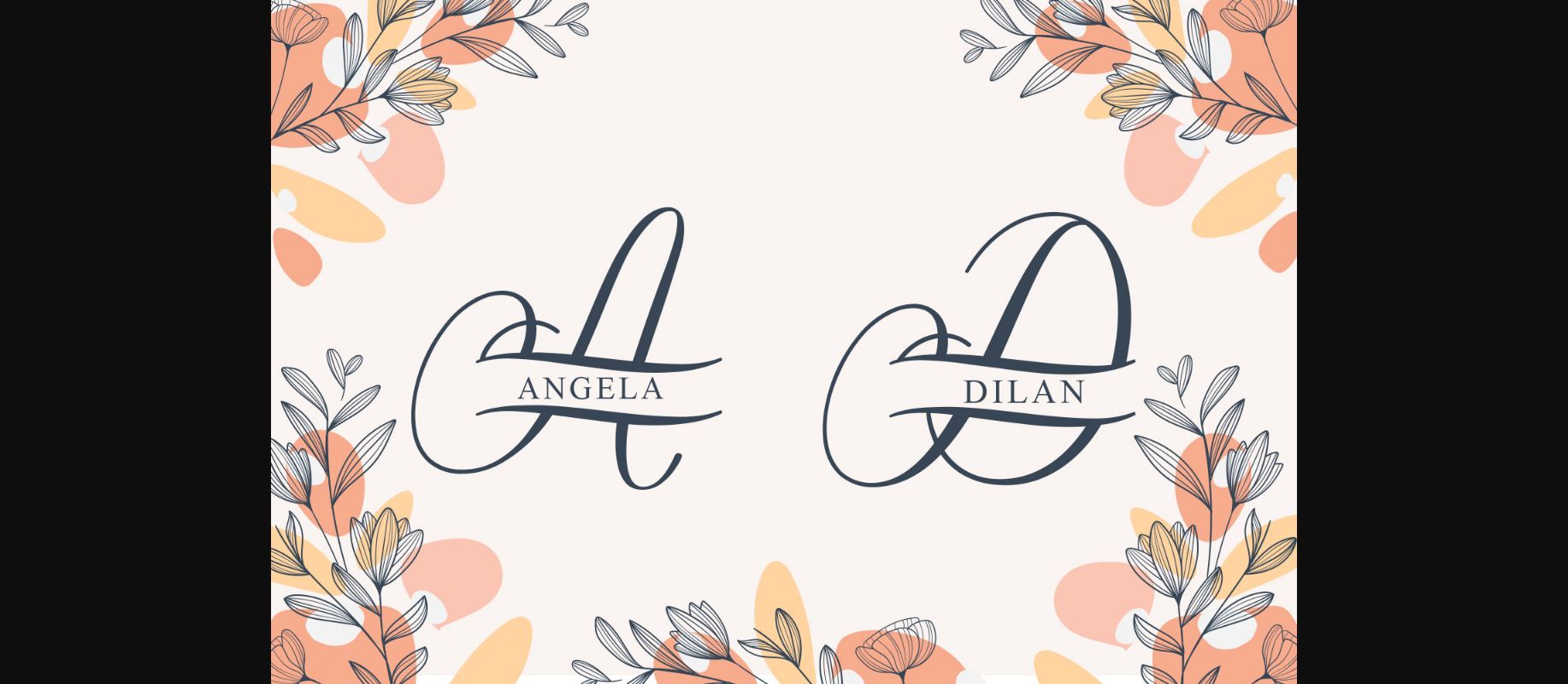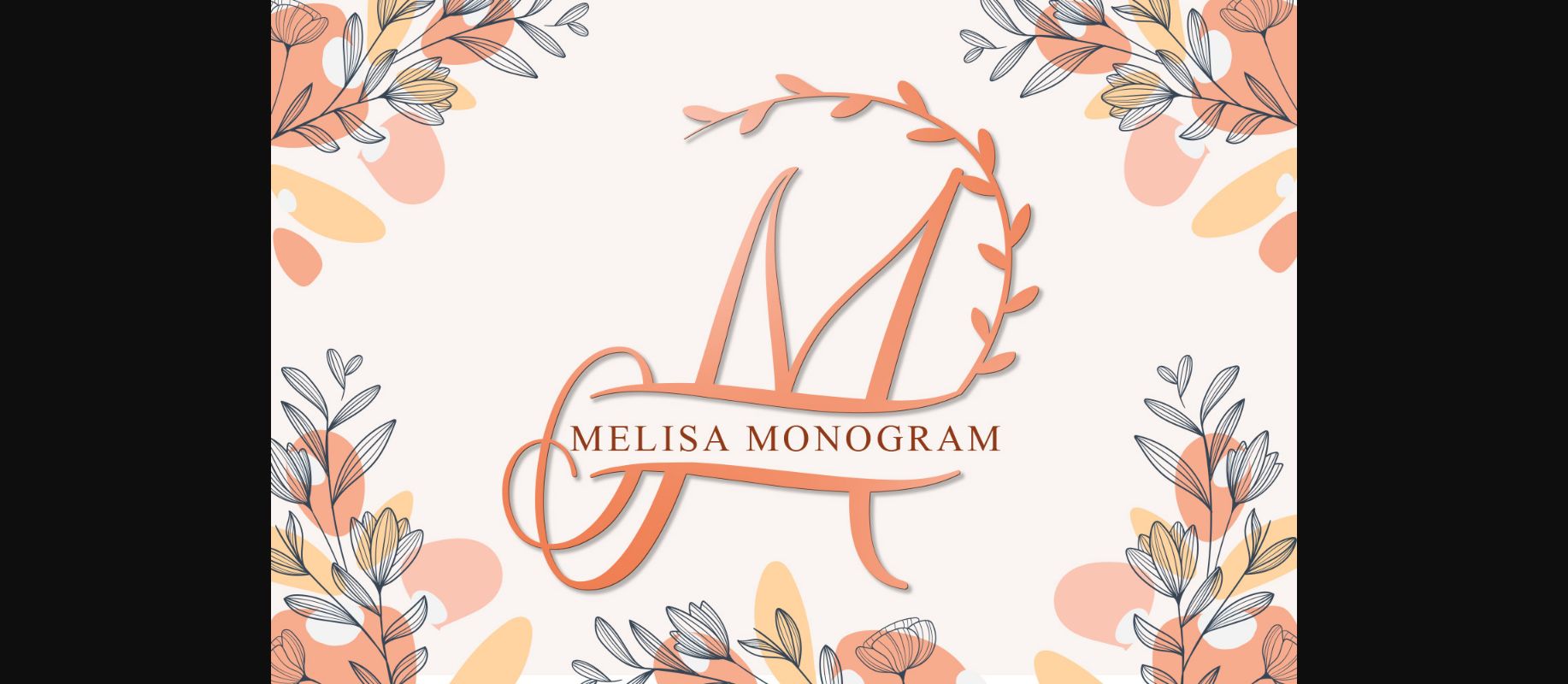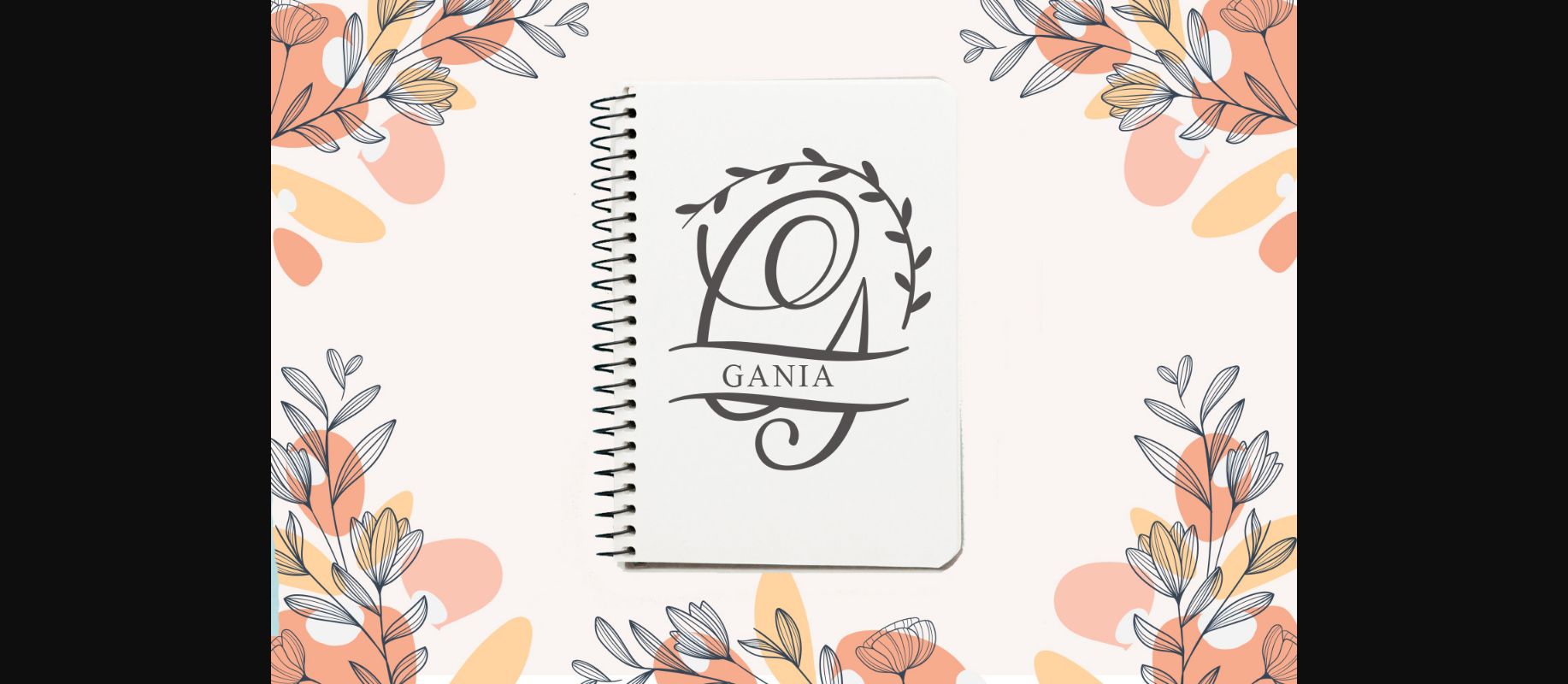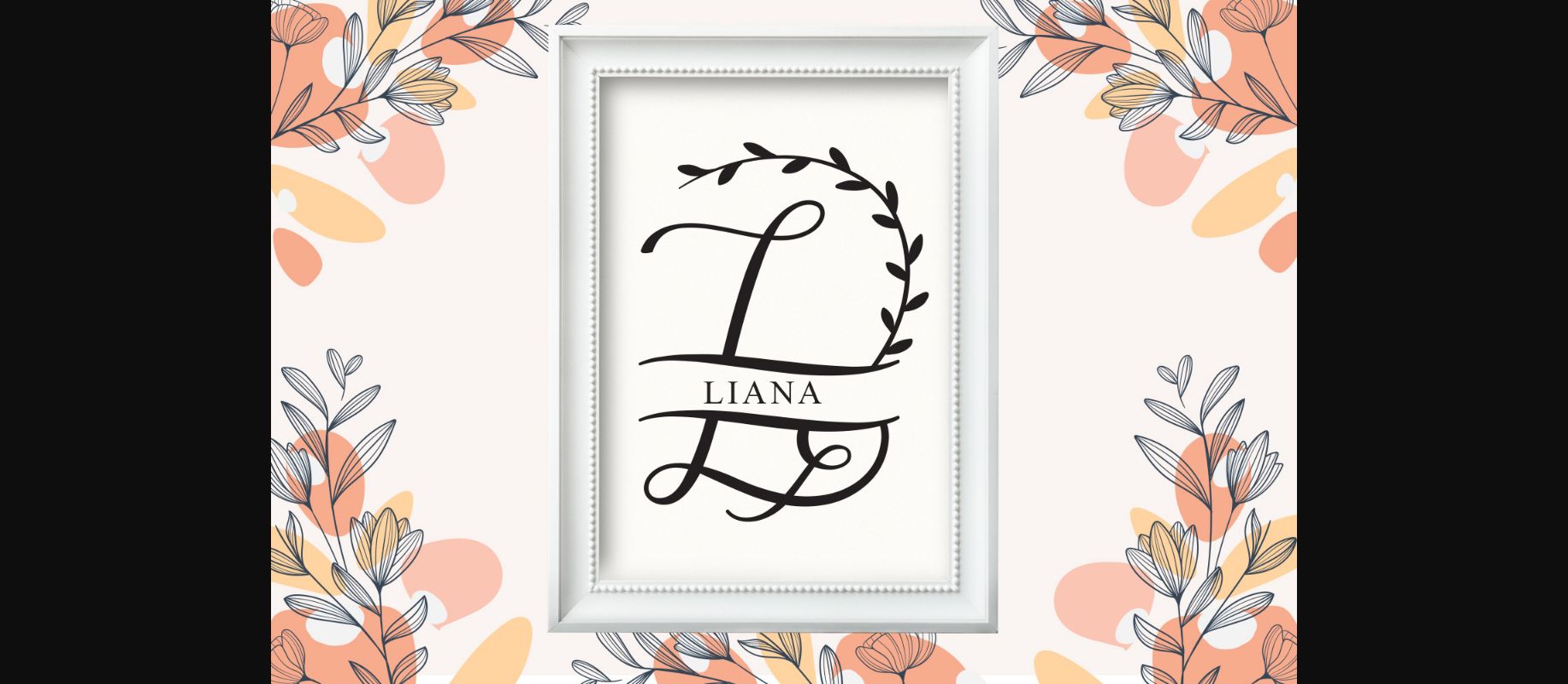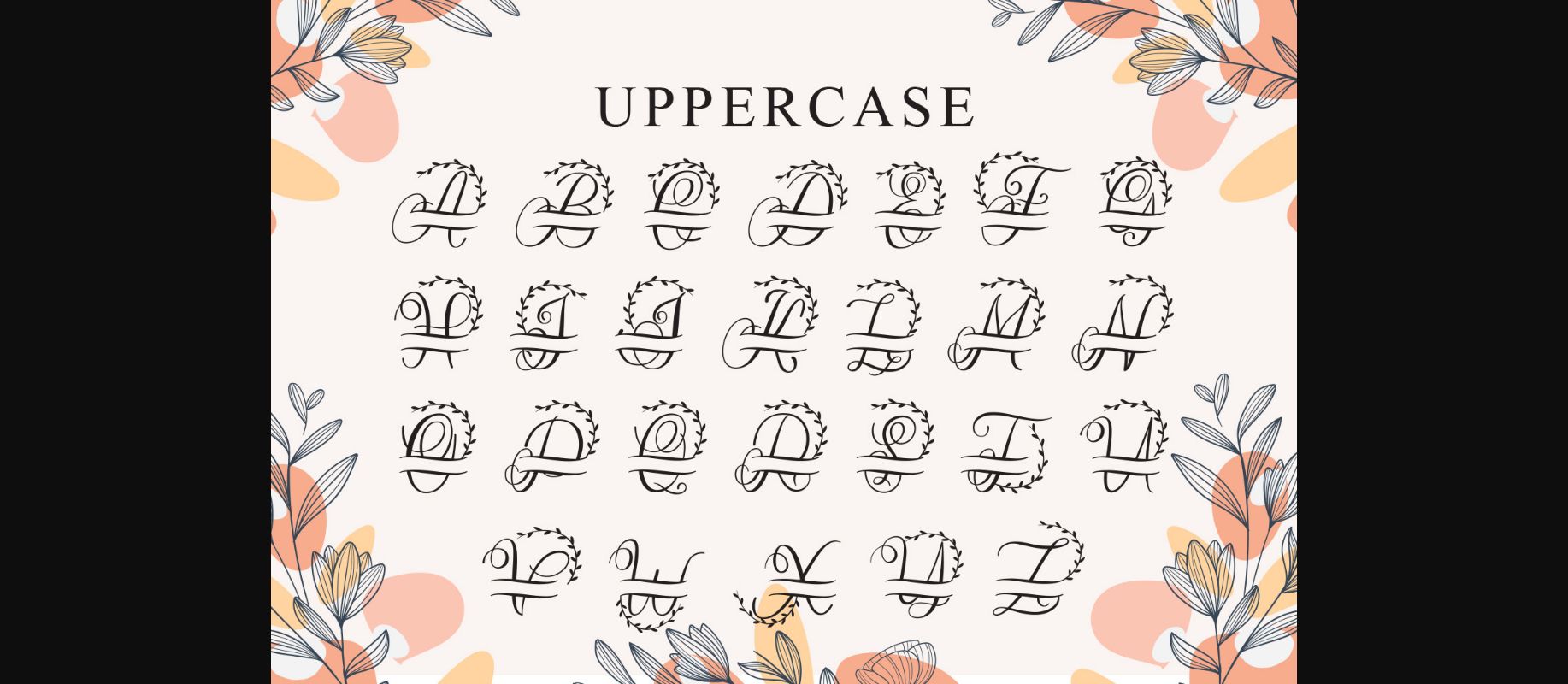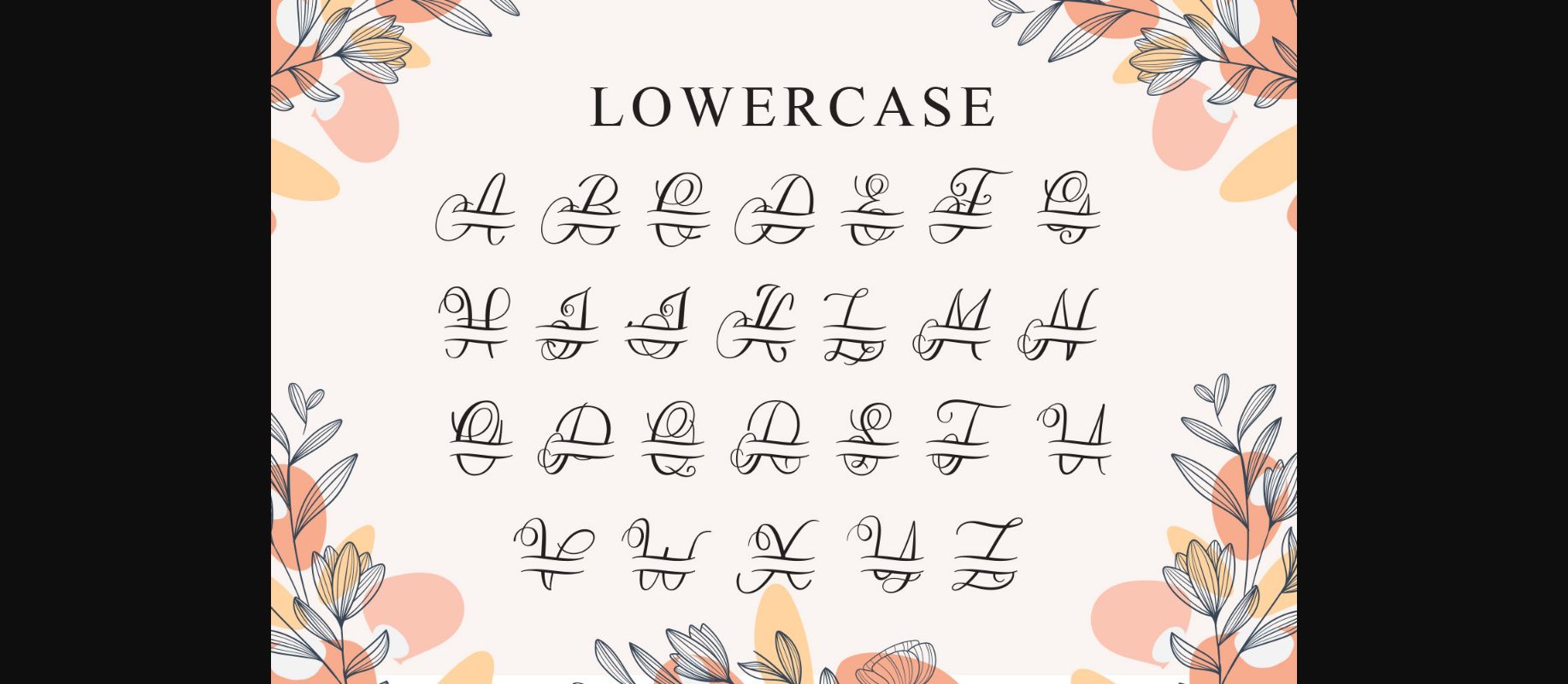
HomeDecorative FontsMelisa Monogram Font Font Decorative Fonts Melisa Monogram Font Font FacebookXPinterestWhatsApp 1 of 8 ... Melisa Monogram Font Font Poster 2... Melisa Monogram Font Font Poster 3... Melisa Monogram Font Font Poster 4... Melisa Monogram Font Font Poster 5... Melisa Monogram Font Font Poster 6... Melisa Monogram Font Font Poster 7... Melisa Monogram Font Font Poster 8... About Melisa Monogram Font Melisa Monogram is a dainty and unique decorative font. Add this romantic and lovely looking font to each of your love letters, wedding invitations or favorite design ideas, and you will be astounded by the outcome. DOWNLOAD NOW People also explored Adaury Font Joking Happy Font Prochan Font Badrudin Font Purple River Font Orderly Font Nellyana Script Font Smooth Dessert Font Kalyubi Font 288 0 TagsMelisa Monogram Font Font Previous articleMonogram Umbrella FontNext articleSpooky Monogram Font LEAVE A REPLY Cancel reply Comment: Please enter your comment! Name:* Please enter your name here Email:* You have entered an incorrect email address! Please enter your email address here Website: Save my name, email, and website in this browser for the next time I comment. Personal Use Free Spectrashell Personal Use Free Read more about this font Term Free Personal Use Free Read more about this font Adelaide Personal Use Free Read more about this font Token No 721 Personal Use Free Read more about this font BLOG How to Cut Any Font on Cricut: Convert a Font to SVG (Free) Turn any font into a clean SVG so it cuts crisp on Cricut - a quick 3-step workflow using a free font-to-SVG tool. Elegant Wedding Invitation Fonts – Handwritten & Script Fonts How to Install and Use Fonts on Windows, macOS, and Web Projects Free vs Paid Fonts: Why Investing in Premium Fonts Is Worth It